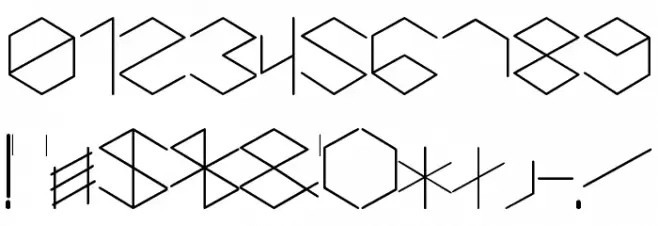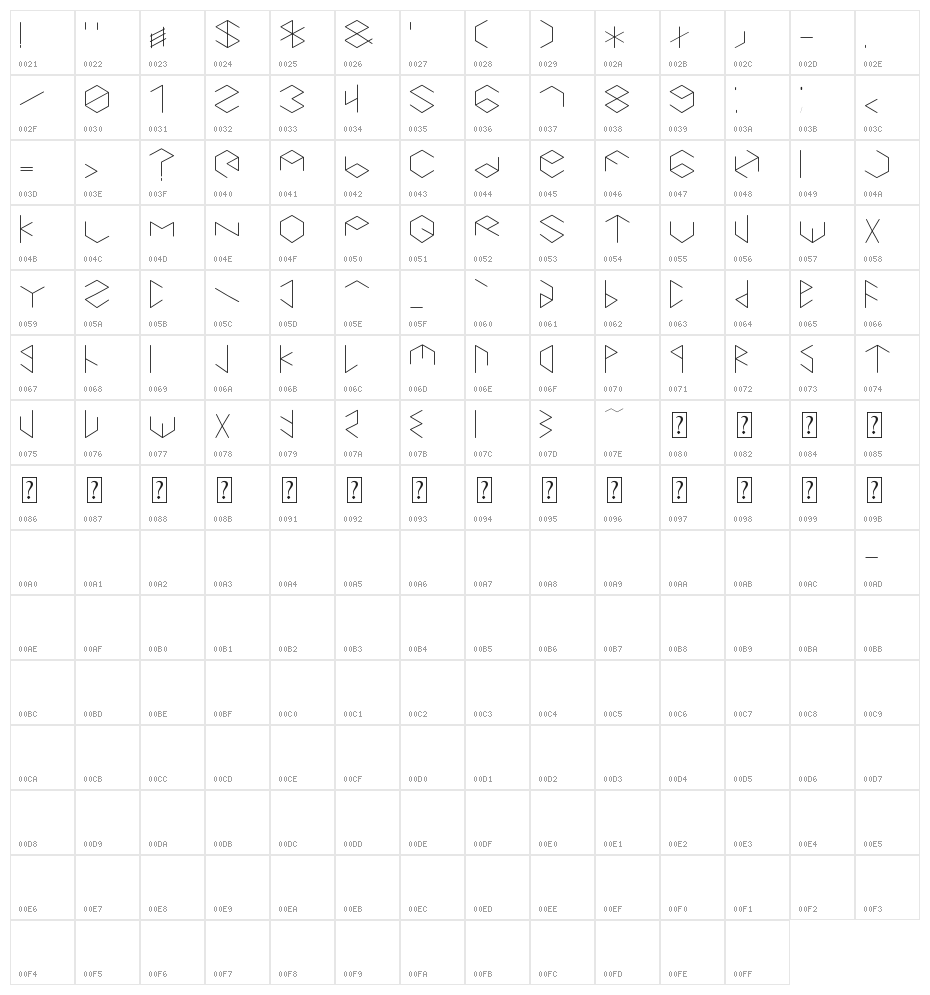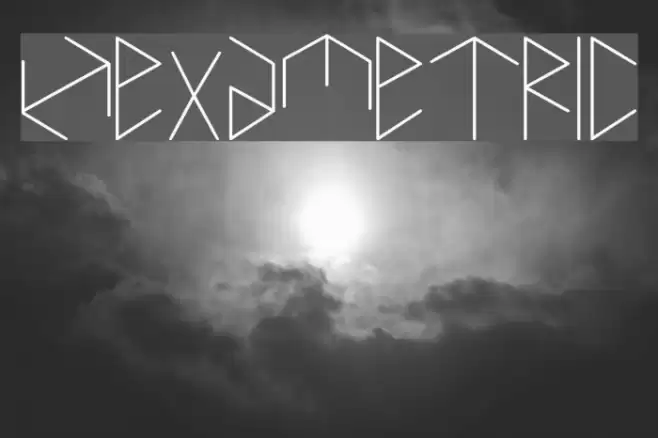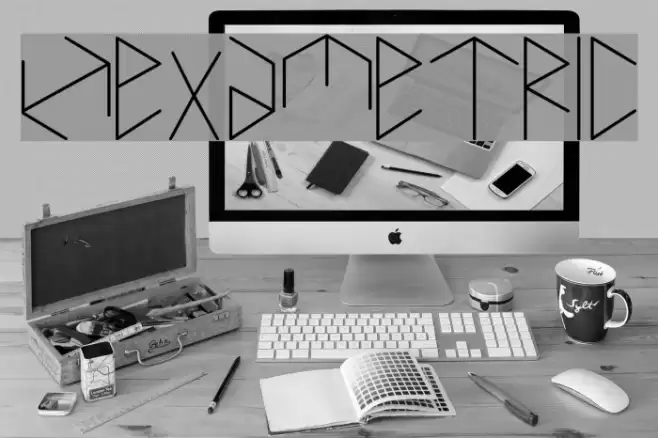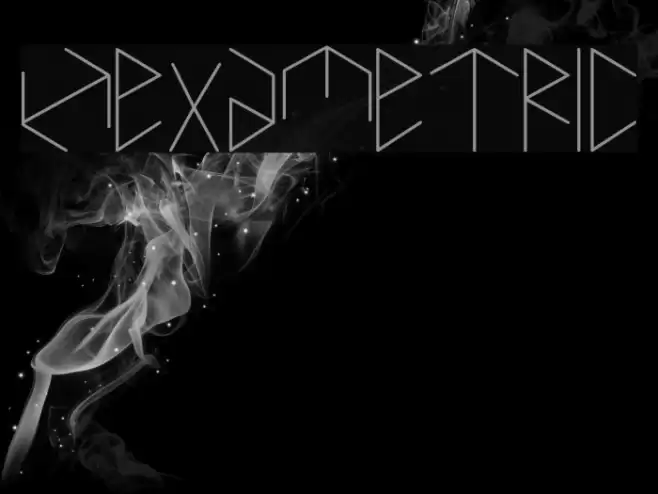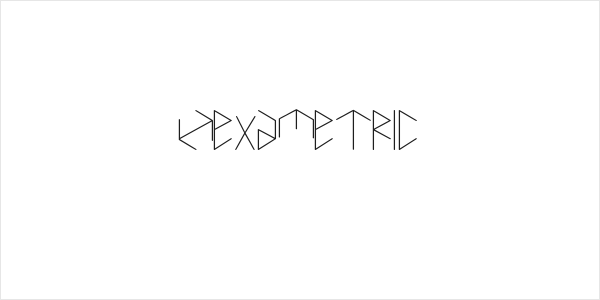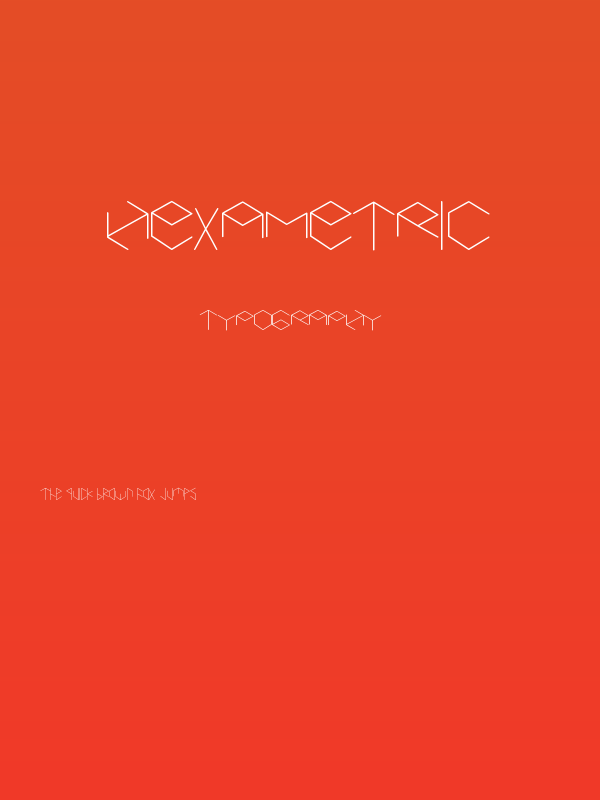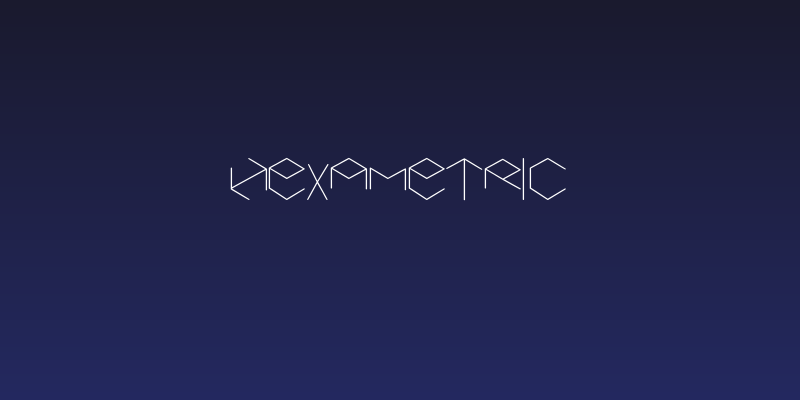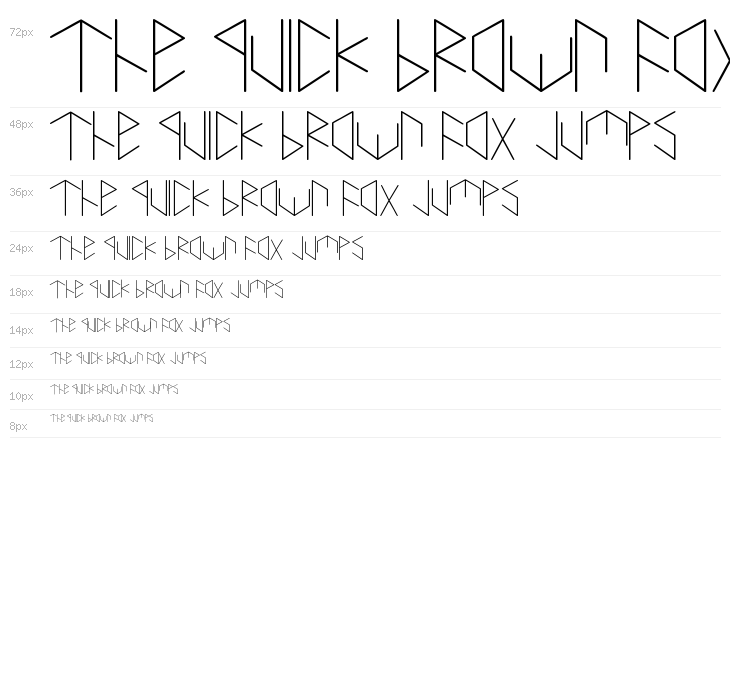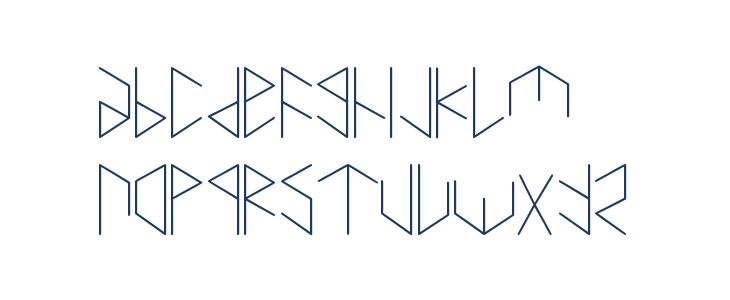
Hexametric Font
Hexametric Description
This font features a geometric and angular design, characterized by its hexagonal shapes and linear strokes. Each character is constructed with sharp angles and straight lines, creating a futuristic and technical appearance. The uppercase and lowercase letters maintain a consistent style, with a focus on symmetry and precision. The numerals and special characters follow the same geometric pattern, ensuring uniformity across the font. This design is ideal for projects that require a modern and edgy aesthetic, offering a unique visual impact.
Proposed ProjectsSuitable for technology branding, futuristic posters, video game titles, and sci-fi themed projects.